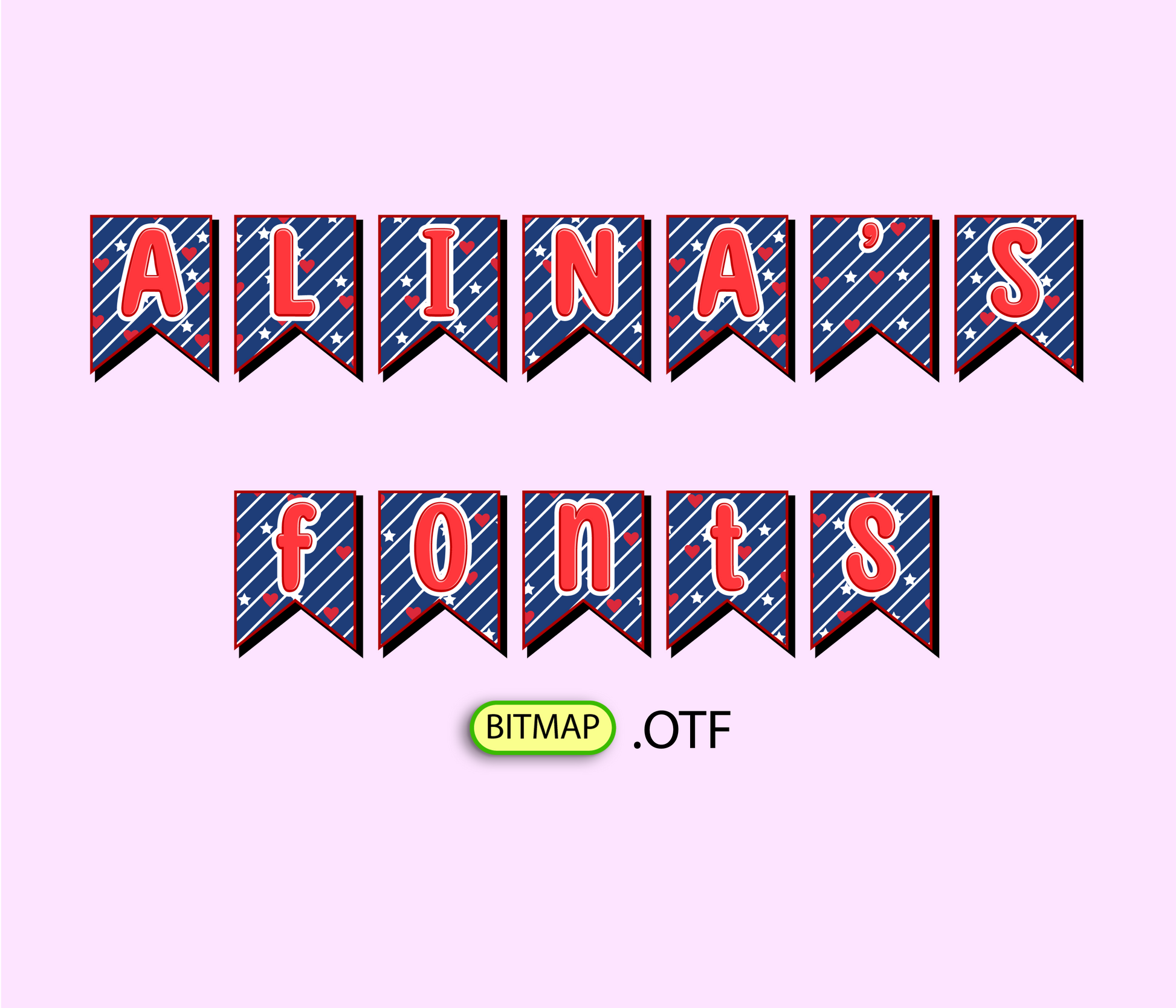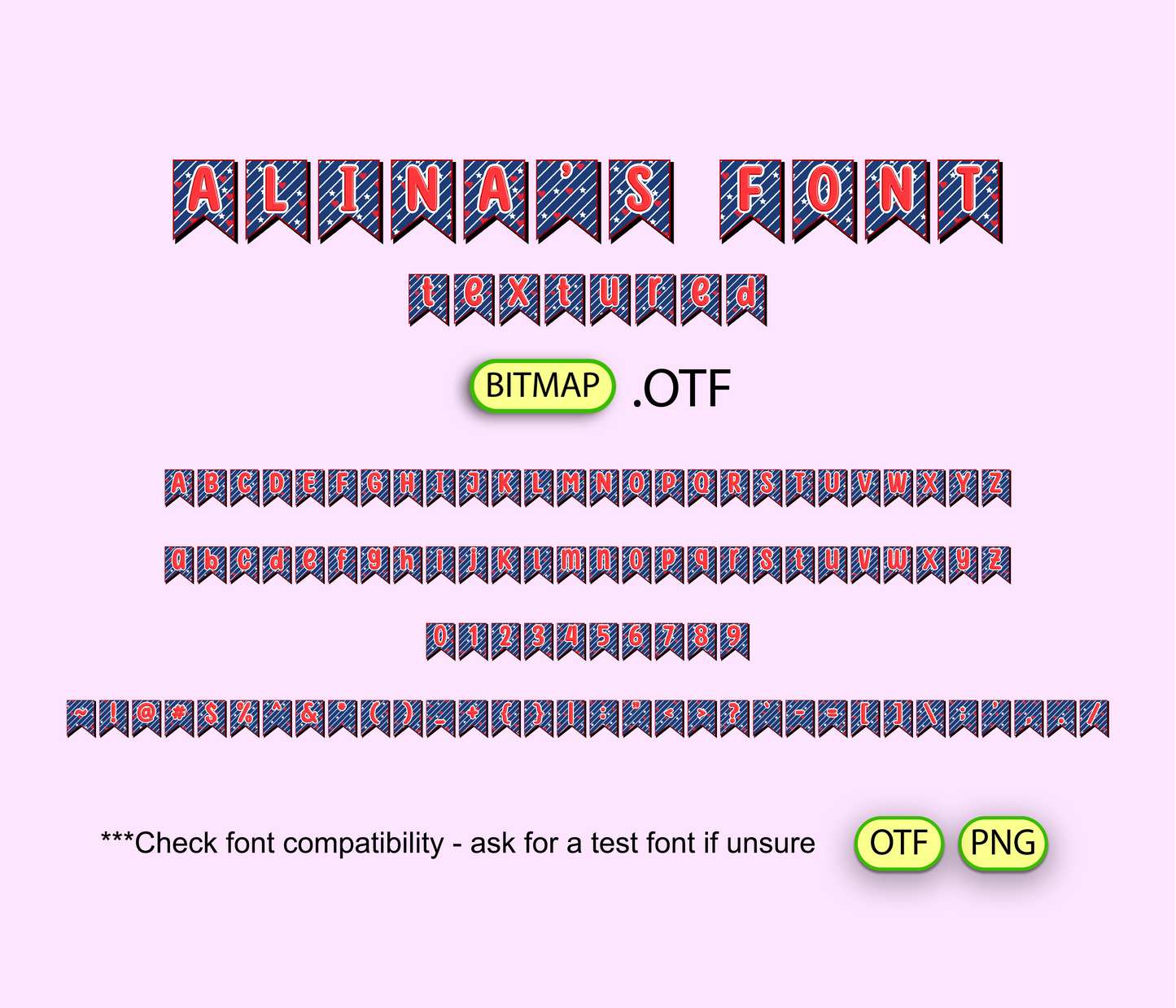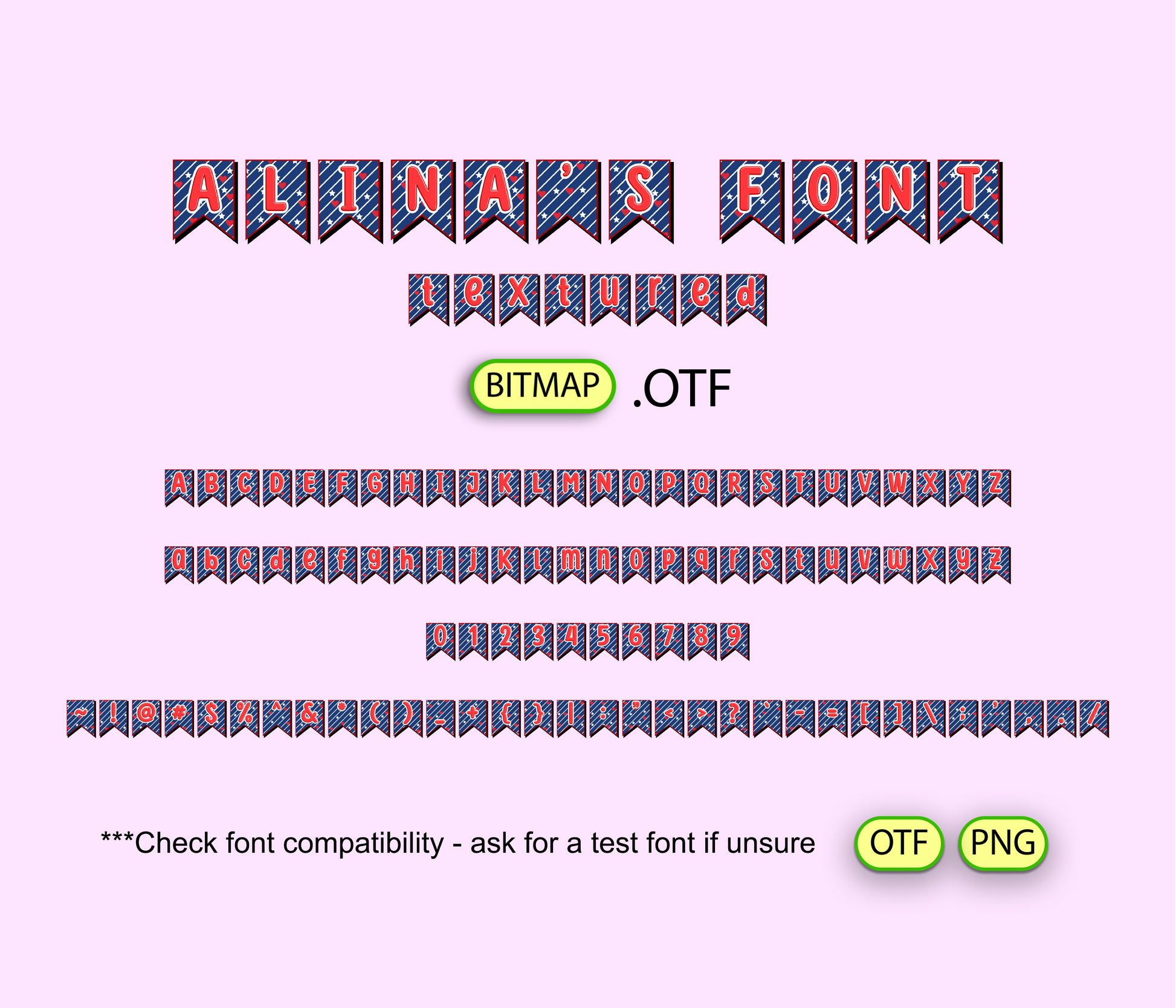
Stars and Stripes Pride Banner Font Textured
Step into the rippling glory of waving banner heritage and unwavering patriotic devotion with our Stars and Stripes Pride Font Textured, capturing the essence of star-spangled honor and legendary national symbol commemoration narratives. Perfect for Independence Day celebration planners, patriotic gift designers, heritage event coordinators, and proud design specialists, this font brings the bold, honor-bound character of beloved star-spangled freedom narratives to your projects. Create flag-worthy invitations, commercial goods, or web content with the proud presence of rippling banner heritage storytelling.
Honorable Typography for Independence Day & Patriotic Heritage Projects
Our Stars and Stripes Pride Font Textured features bold, honor-bound letterforms with rippling banner textures reflecting the world of legendary star-spangled symbols and iconic national heritage devotion.
- Event Promotions: Craft flag-worthy invitations, banners, and party decorations for Independence Day celebrations, patriotic heritage gatherings, and national pride festivals that radiate the honor-bound spirit of legendary star-spangled entertainment
- Merchandise Design: Perfect for apparel, wall prints, adhesive graphics, and patriotic collectibles that showcase the proud aesthetic of rippling banner and national heritage devotion themes
- Digital Media: Wave proud websites, content channels, and social platforms with honorable header designs and imagery that express the devotion of legendary Independence Day star-spangled festivities
- Creative Content: Add signature banner flair to patriotic illustrations, heritage artwork, and imaginative projects inspired by beloved star-spangled commemoration chronicles
- Personal Projects: Stir proud heritage devotion into memory albums, handcrafted items, and living space decorations inspired by the world of legendary star-spangled celebration characters
Our font pays tribute to the world of rippling banner wonder and generation-spanning national heritage devotion culture, empowering your projects with its bold and honor-bound proud character. Whether crafting Independence Day materials, designing heritage products, or adding a star-spangled touch to personal projects, this font communicates the proud essence of patriotic banner magic. Ready to wave honorable devotion into your creations? This font is your key to attention-grabbing, impactful design.